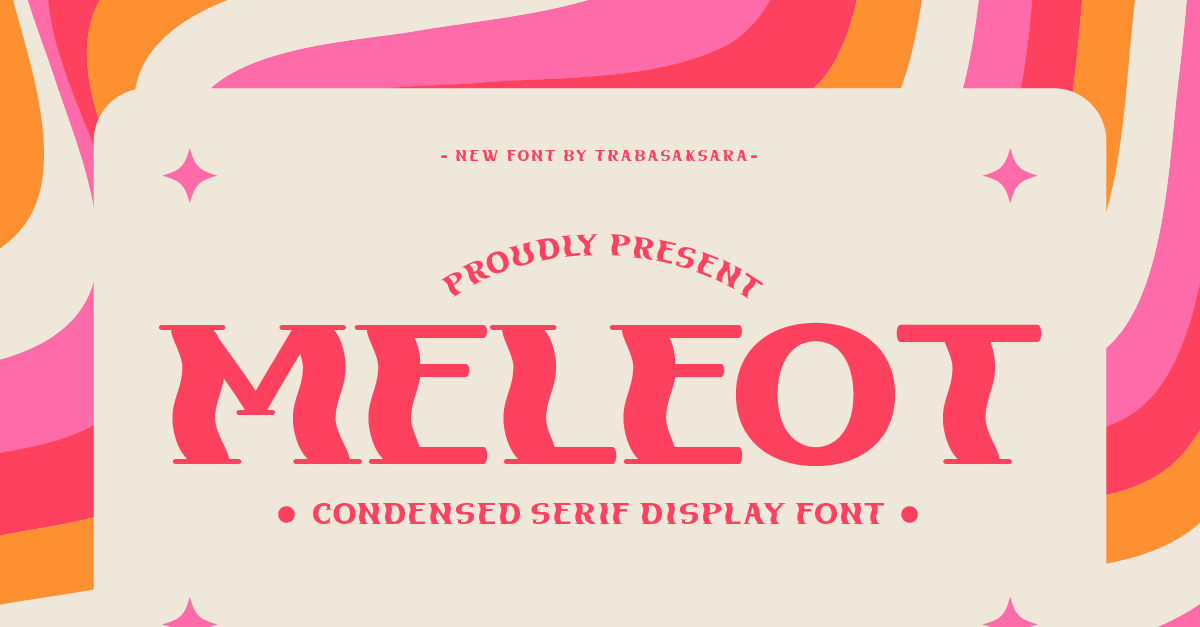
Meleot - Condensed Serif Display Font
Introducing Meleot Font - the perfect choice for designers who want to create designs that are both modern and versatile.
With its unique and stylish design, Meleot Font is perfect for a wide range of design projects. Whether you're creating a website, designing a logo, or working on a print project, Meleot Font will help you create designs that are both eye-catching and memorable.
Crafted with precision and care, Meleot Font features clean lines, unique shapes, and a range of weights and styles to suit any design need. Whether you're looking for a bold display font or a more subtle option, Meleot Font has got you covered.
And with its highly legible design, Meleot Font is perfect for use in body copy and longer text blocks, helping you create designs that are both stylish and functional.